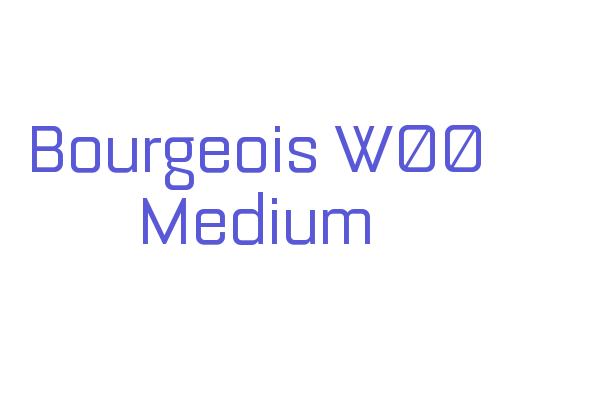
Bourgeois W00 Medium is a basic sans-serif font designed by Jonathan Barnbrook and Marcus McCallion. With a clean and modern style, this font is perfect for a wide range of design projects. Its medium weight makes it ideal for body text, logos, and branding materials.
Font Name: Bourgeois W00 Medium
Designer: Jonathan Barnbrook, Marcus McCallion